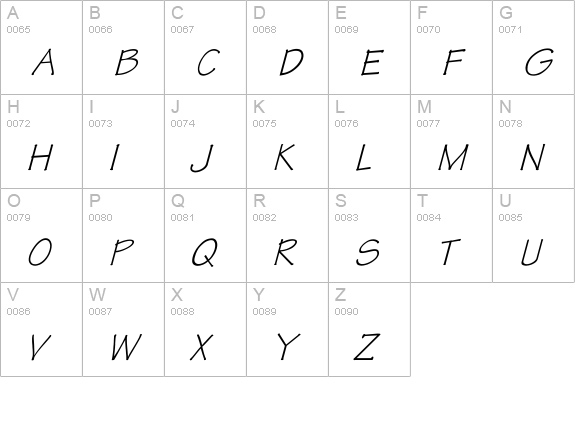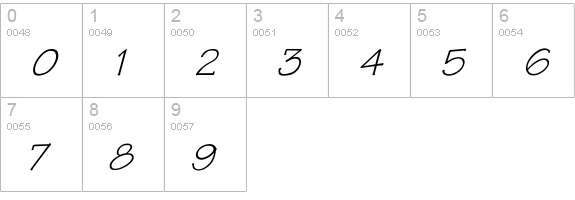
Tekton Italic is a distinctive, italic variant in the Tekton typeface family \xE2\x80\x94 well suited to design and typography projects.
Tekton Italic is a stunning and versatile font that exudes elegance and sophistication with its sleek and flowing lines. It effortlessly combines the classic charm of traditional calligraphy with a modern twist, making it the perfect choice for any design project that requires a touch of finesse. This font is meticulously crafted to capture attention and leave a lasting impression. Its unique italicized style adds a sense of movement and dynamism, creating a visually captivating experience for readers. Whether used in headings, logos, or body text, Tekton Italic adds a touch of class and professionalism to any design. One of the standout features of Tekton Italic is its exceptional readability. Each letter is carefully designed to ensure optimal legibility, making it suitable for both print and digital media. Its clean and clear lines make it easy on the eyes, ensuring that your message is effortlessly conveyed to your audience. What makes Tekton Italic even more remarkable is that it is available for free. Yes, you read that right – this outstanding font can be freely downloaded at FontsMarket.com. Whether you are a professional designer, a student, or simply someone with a passion for typography, you can access this font without any cost. This means that you can add a touch of luxury and style to your designs without breaking the bank. So why wait? Download Tekton Italic today and elevate your design projects to new heights. Let this font be the secret weapon in your creative arsenal, allowing you to create breathtaking designs that are sure to impress. With its timeless elegance and accessibility, Tekton Italic is a font that you simply cannot afford to miss out on.